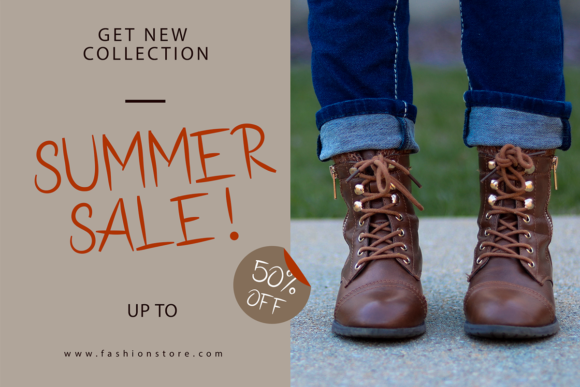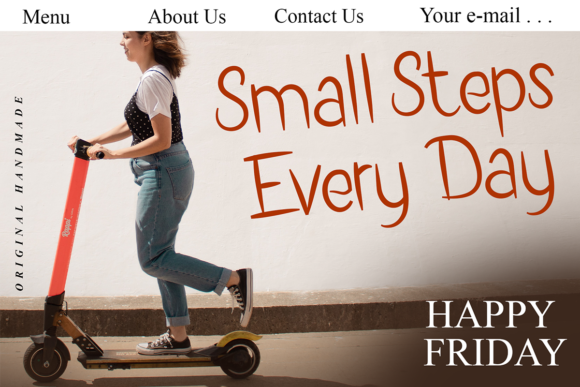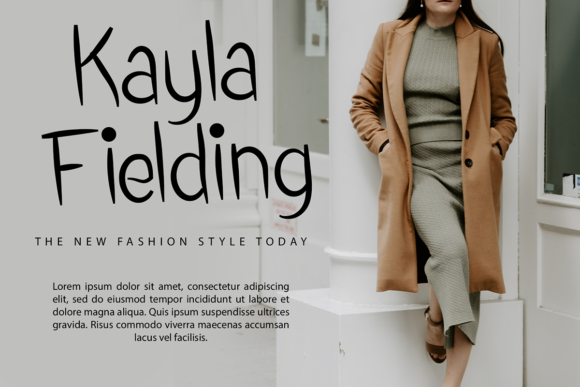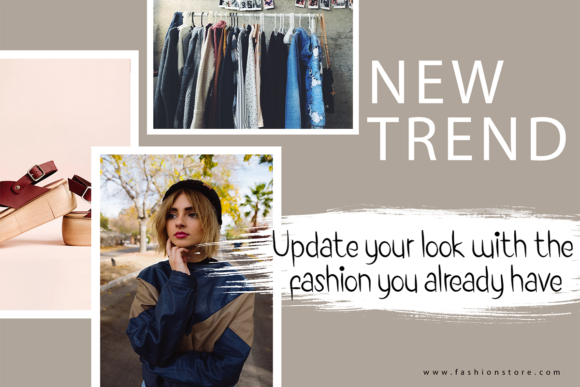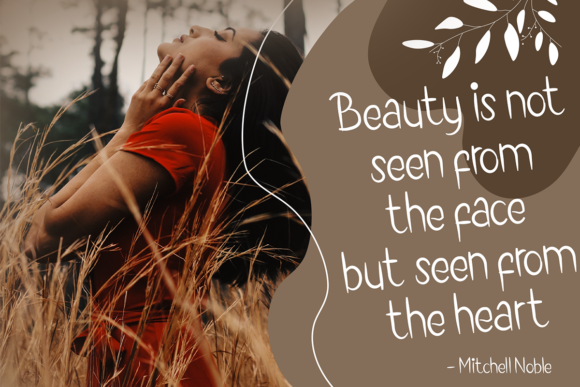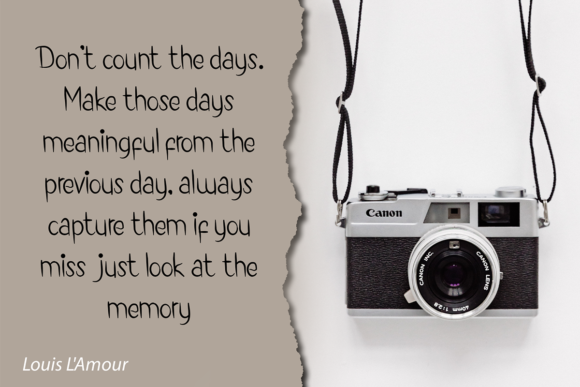
Introducing Glory Lake Font: Elevate Your Designs with a Modern Handwritten Touch
In the world of typography, fonts play a pivotal role in conveying messages, expressing emotions, and creating lasting impressions. For designers, crafters, and anyone looking to add a personal touch to their projects, the right font can make all the difference. This is where Glory Lake Font comes into play—a modern handwritten font designed to bring a fresh and unique aesthetic to your creations. Whether you’re working on brand logos, invitations, greeting cards, or any other design project, Glory Lake Font is an excellent choice to consider.
What Makes Glory Lake Font Stand Out?
Glory Lake Font is characterized by its modern and fluid handwritten style. It strikes a perfect balance between elegance and casualness, making it versatile for a wide range of applications. Here are a few key features that set Glory Lake Font apart:
- Modern Aesthetic: The font boasts a contemporary look that can instantly elevate the visual appeal of your designs.
- Handwritten Charm: Its handwritten nature adds a personal and warm touch to any project, making it more relatable and engaging.
- Versatility: Glory Lake Font is suitable for various design projects, from professional brand logos to more casual invitations and greeting cards.
- Ease of Use: Designed with user-friendliness in mind, this font can be easily integrated into your favorite design tools and software.
Applications of Glory Lake Font
The versatility of Glory Lake Font makes it an invaluable asset for designers and crafters across different fields. Here are some of the many ways you can use this font:
- Brand Logos: Create a memorable brand identity with a logo that stands out. Glory Lake Font’s modern yet approachable style can help you achieve a professional look that resonates with your audience.
- Invitations: Whether it’s a wedding invitation, a birthday party invite, or a corporate event announcement, Glory Lake Font adds a touch of elegance and sophistication.
- Greeting Cards: From thank you cards to holiday greetings, this font brings a warm and personal touch to your messages.
- Digital Content: Enhance your website, blog, or social media posts with eye-catching text that captures attention and engages readers.
Tips for Using Glory Lake Font Effectively
To make the most out of Glory Lake Font, consider the following tips:
- Pair it Wisely: Combine Glory Lake Font with complementary fonts to create visual interest and hierarchy in your designs.
- Adjust Size and Color: Experiment with different sizes and colors to emphasize certain elements and create a focal point.
- Consider the Context: Tailor your design to your audience and purpose. For example, a more formal setting might call for a simpler design, while a creative project can benefit from more elaborate typography.
Glory Lake Font is a versatile and stylish addition to any designer’s toolkit. Its modern handwritten style offers a fresh alternative to more traditional fonts, allowing for the creation of unique and engaging designs. Whether you’re a professional designer or a DIY enthusiast, Glory Lake Font can help you achieve your creative goals with ease. So why not give it a try and see how it can transform your projects?